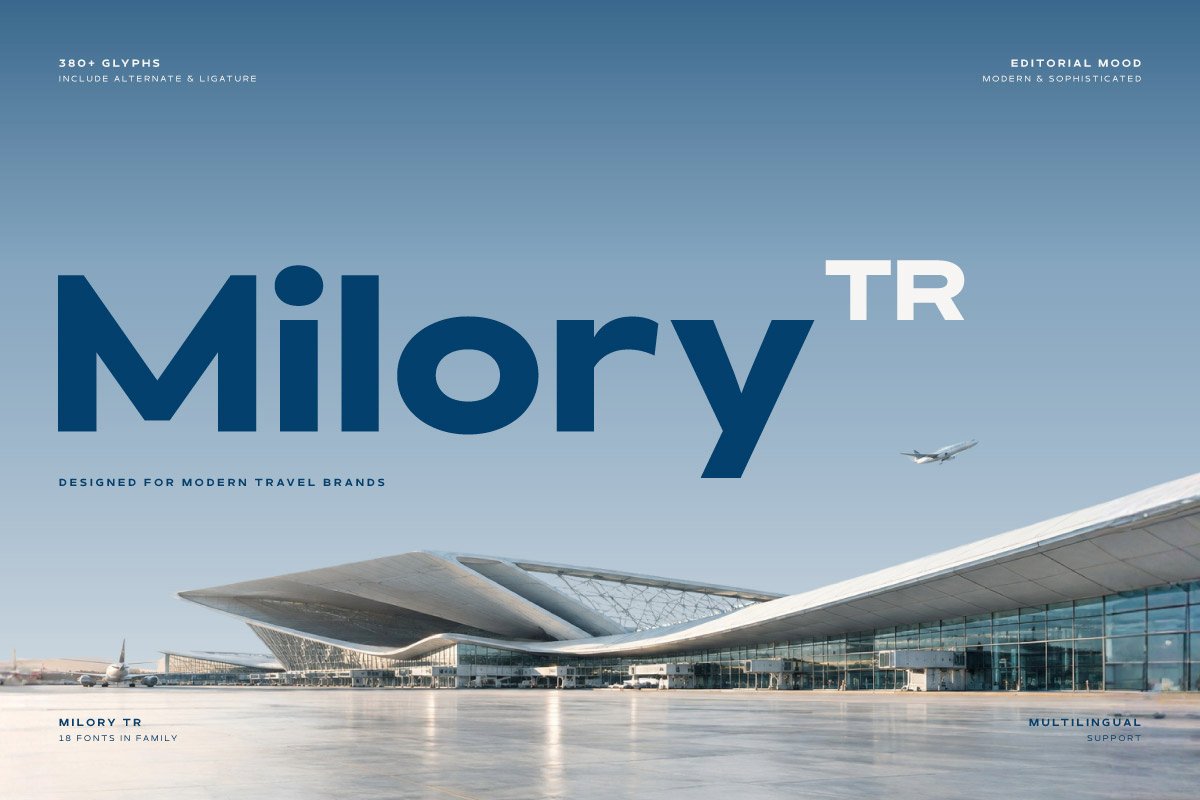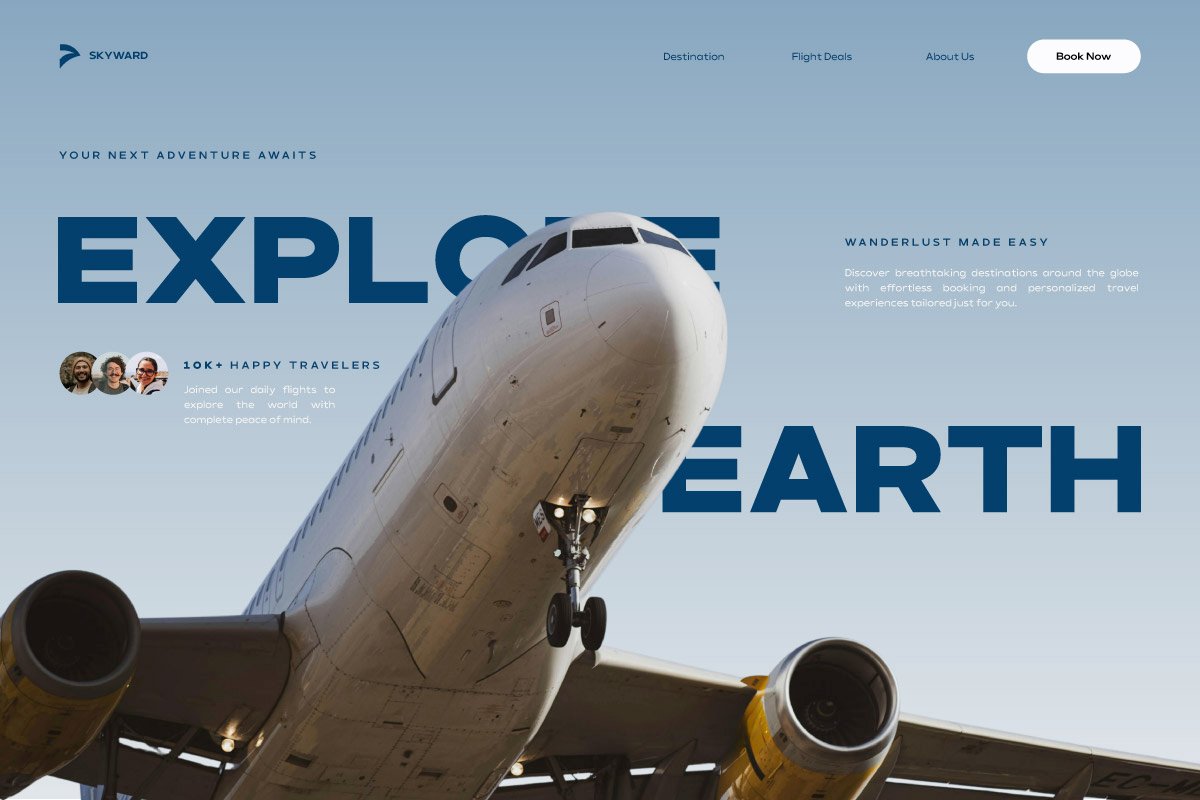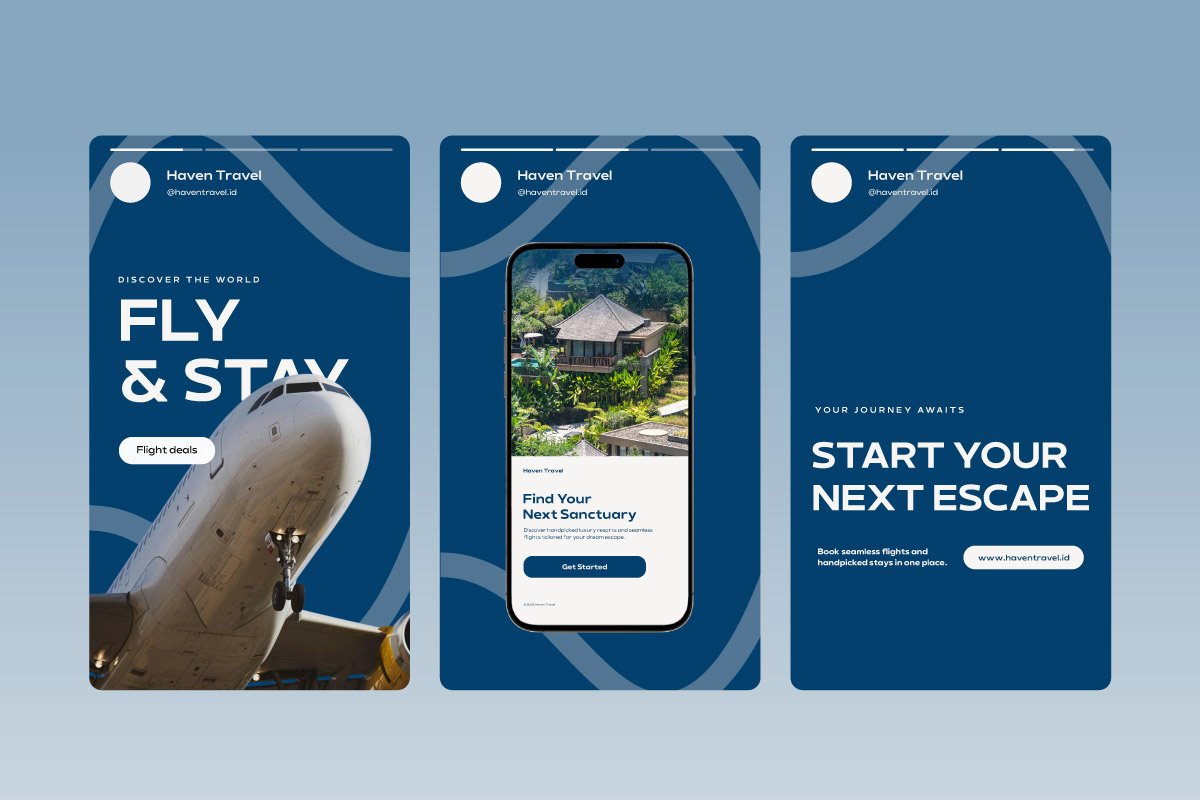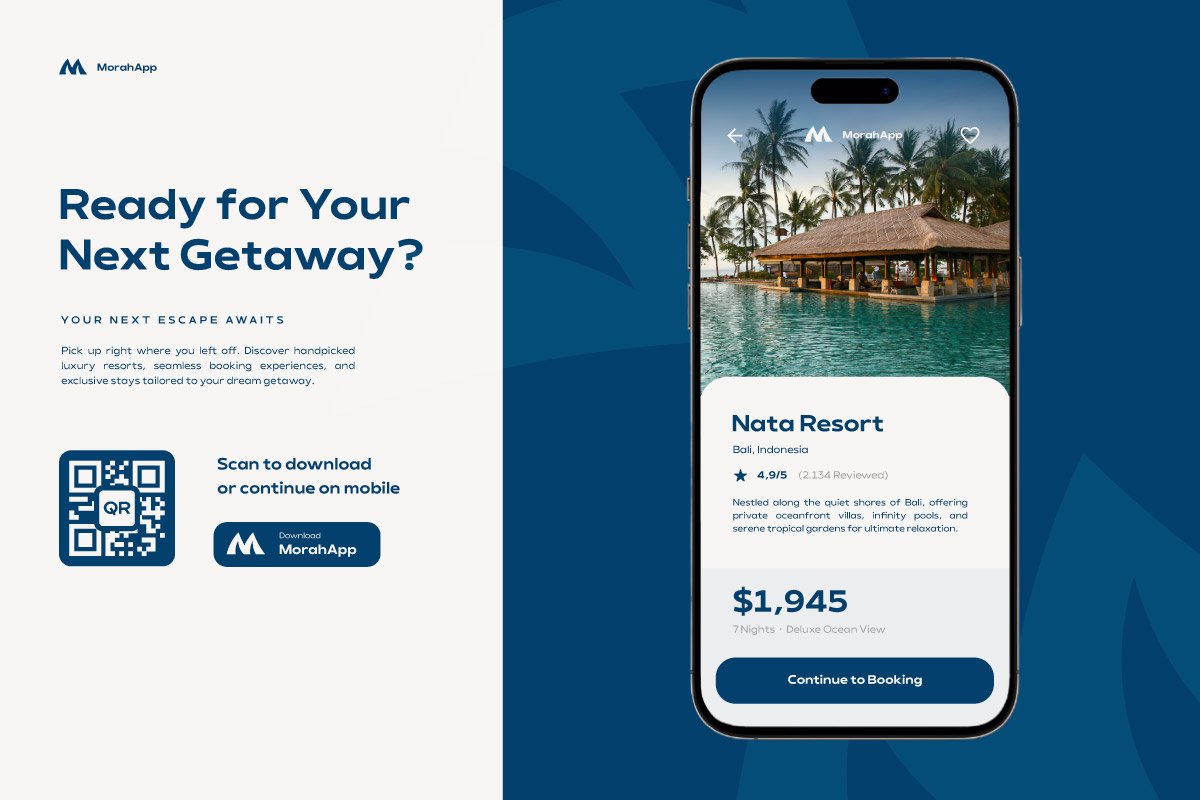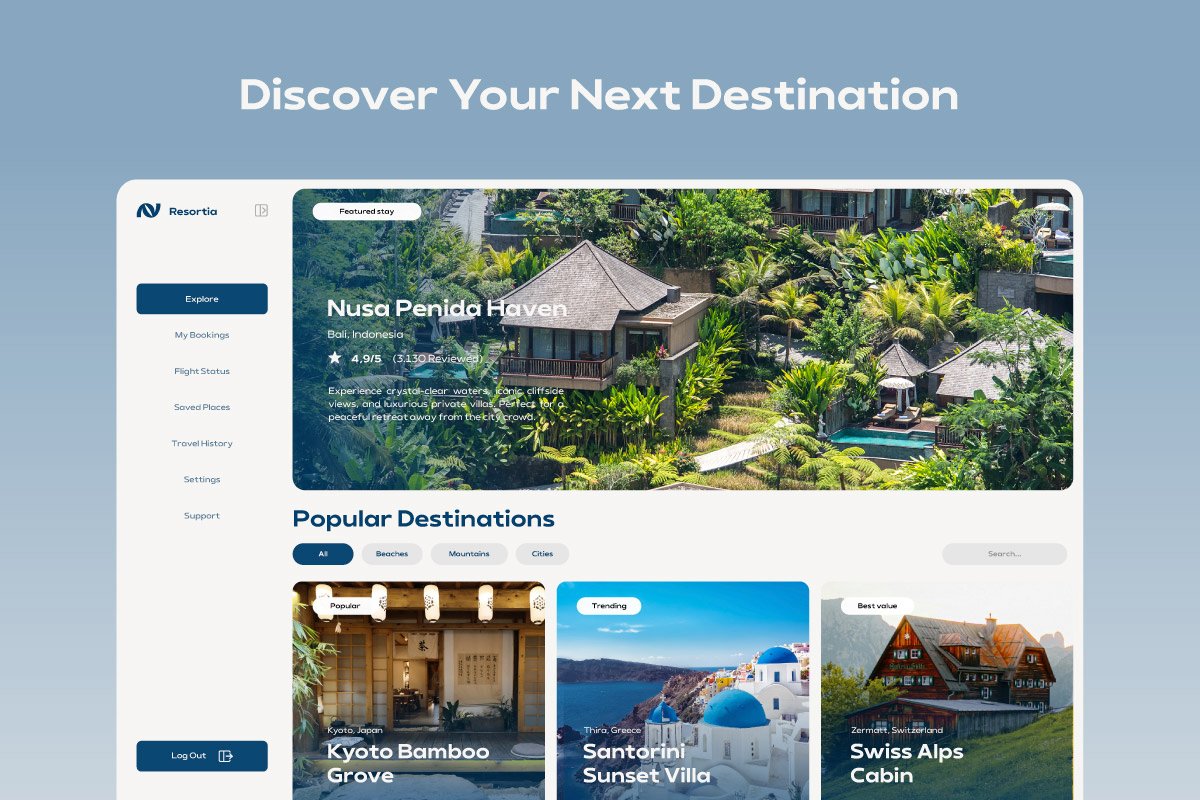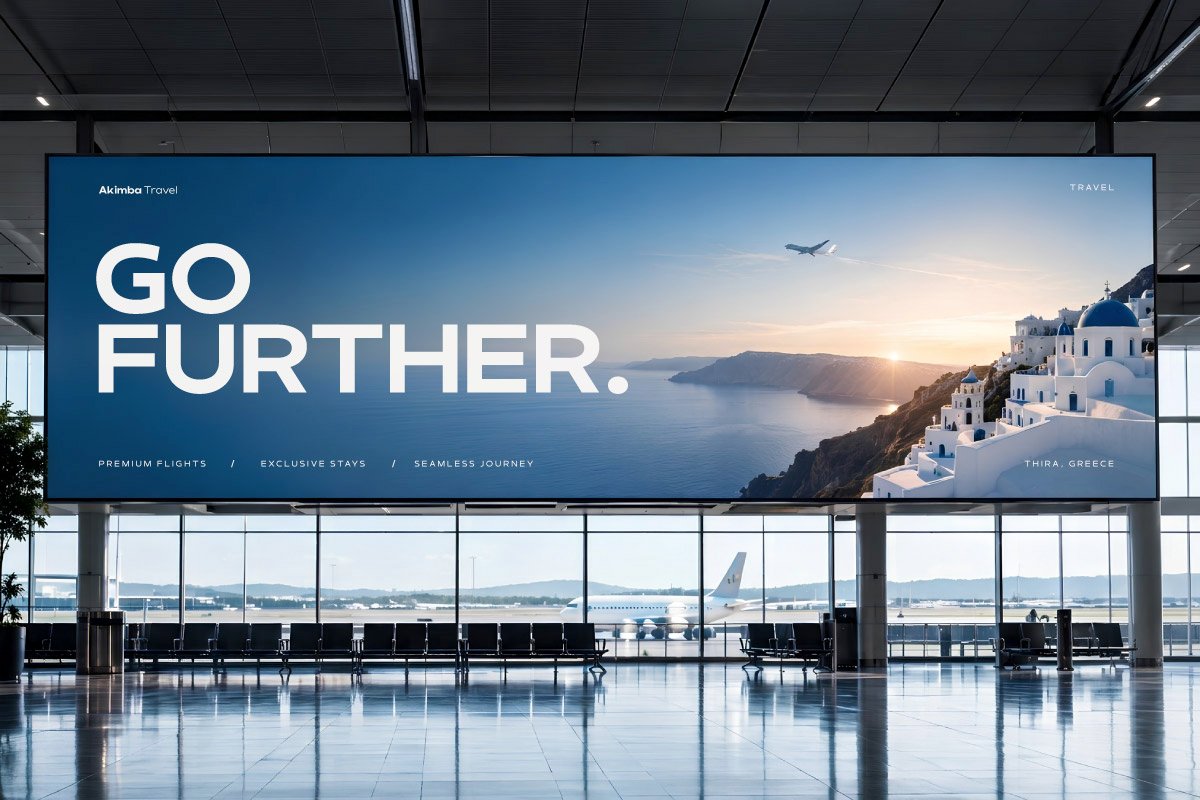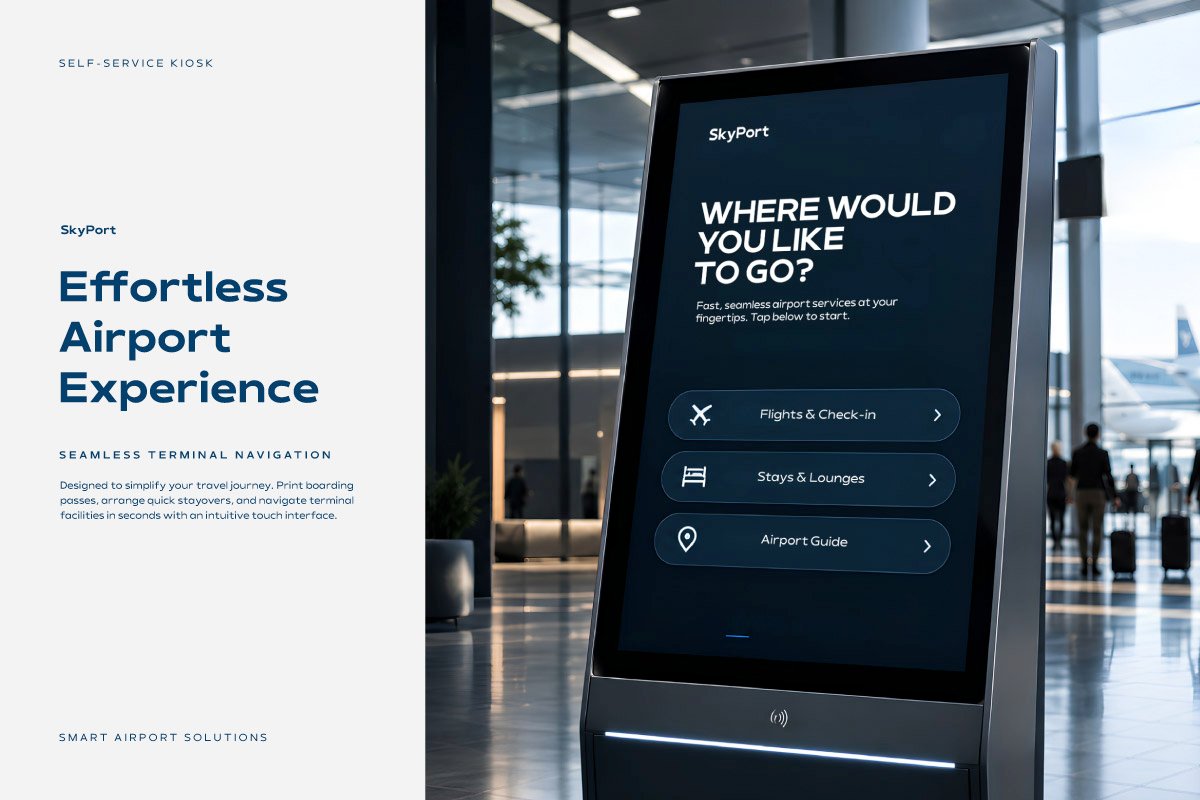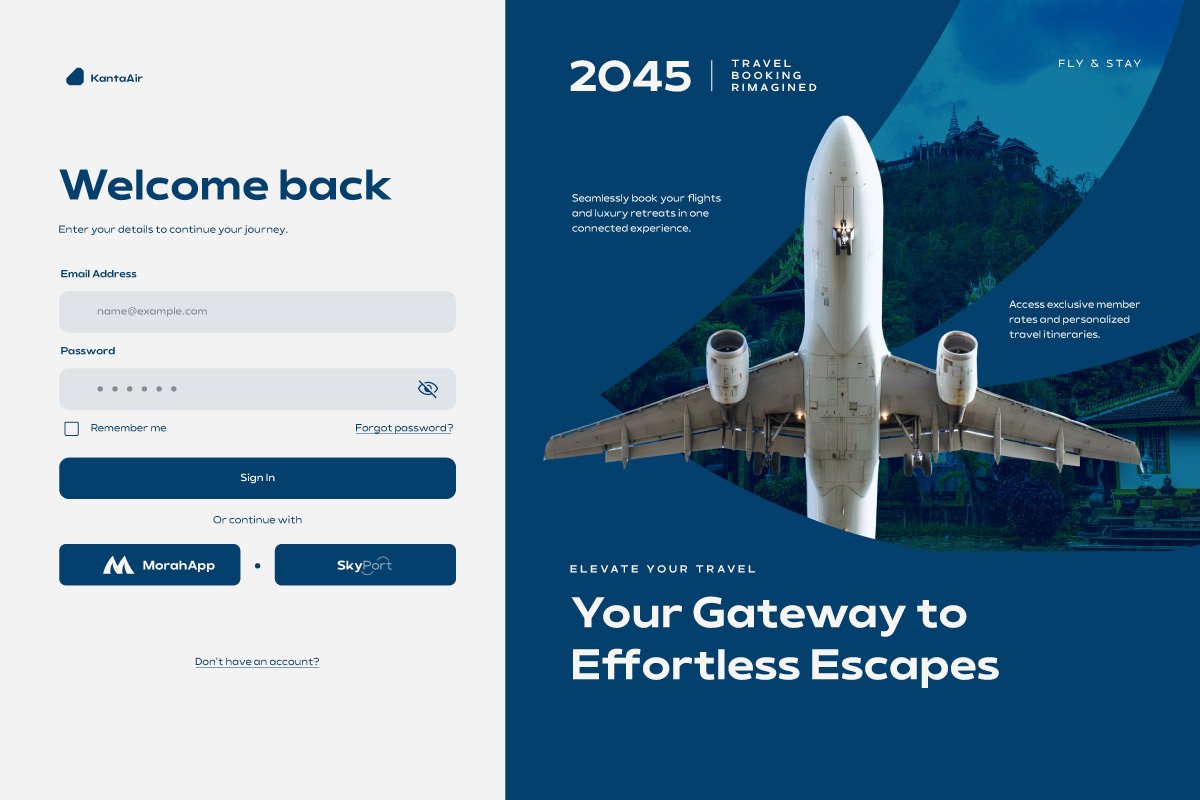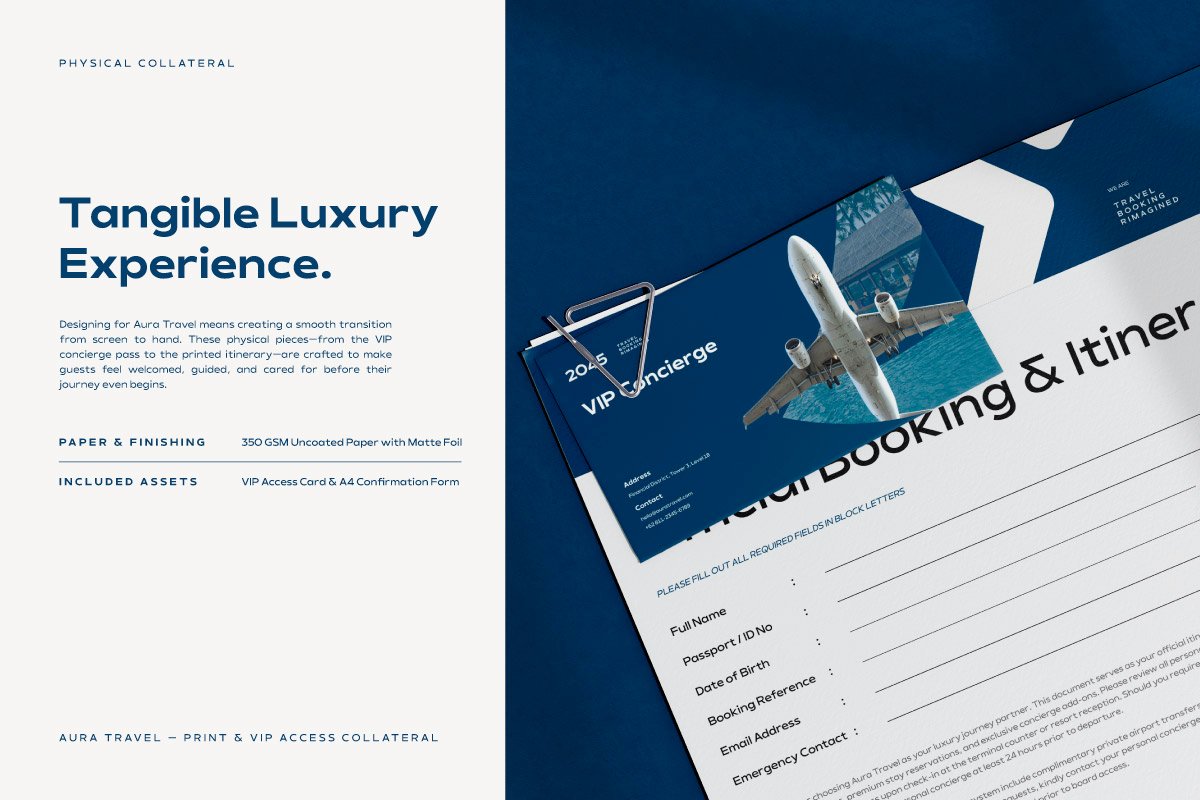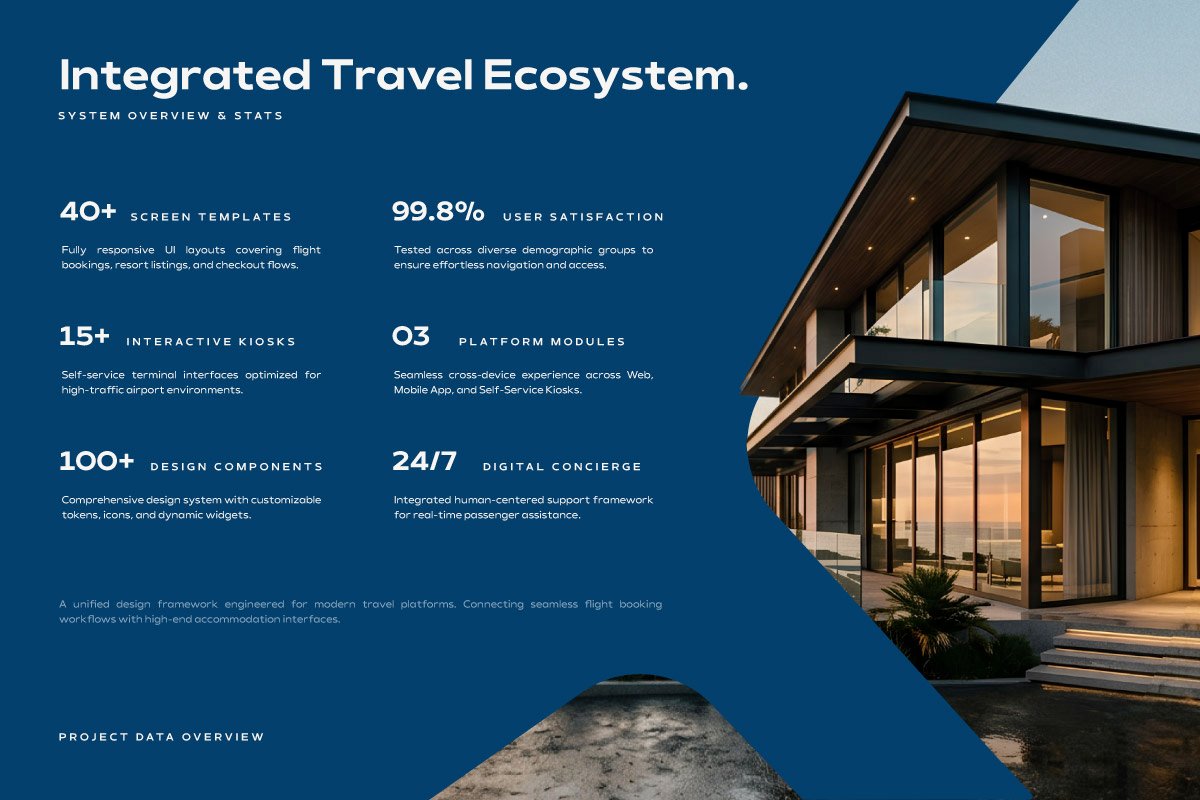
- Milory TR – Wide Geometric Sans Font for Travel
Milory TR emerges as a wide-proportion geometric sans-serif font specifically engineered to meet the visual standards of the modern travel and tourism industry. Characterized by clean lines, strong geometric precision, and a smart aesthetic, this typeface exudes a professional yet premium tone. Milory TR serves as the perfect typographic foundation for building user trust and comfort within digital ecosystems.
Designed for optimal legibility across high-resolution screens and printed materials, Milory TR is the ultimate choice for premium booking platforms, automated self-service airport kiosks, travel aggregators, and cruise line apps. Its expanded letterforms ensure that critical information—ranging from airline flight schedules and luxury resort listings to hotel booking services—is delivered with absolute clarity, intuitive navigation, and an elegant appearance.
Equipped with 18 style variations (from Thin to Black, including Italics), ligature features, and a comprehensive set of 380+ glyphs with multilingual support, this font offers limitless flexibility for UI/UX and brand identity designers. Elevate the visual quality of your website, social media assets, and digital tourism services with the clean, sophisticated, and futuristic typographic touch of Milory TR.